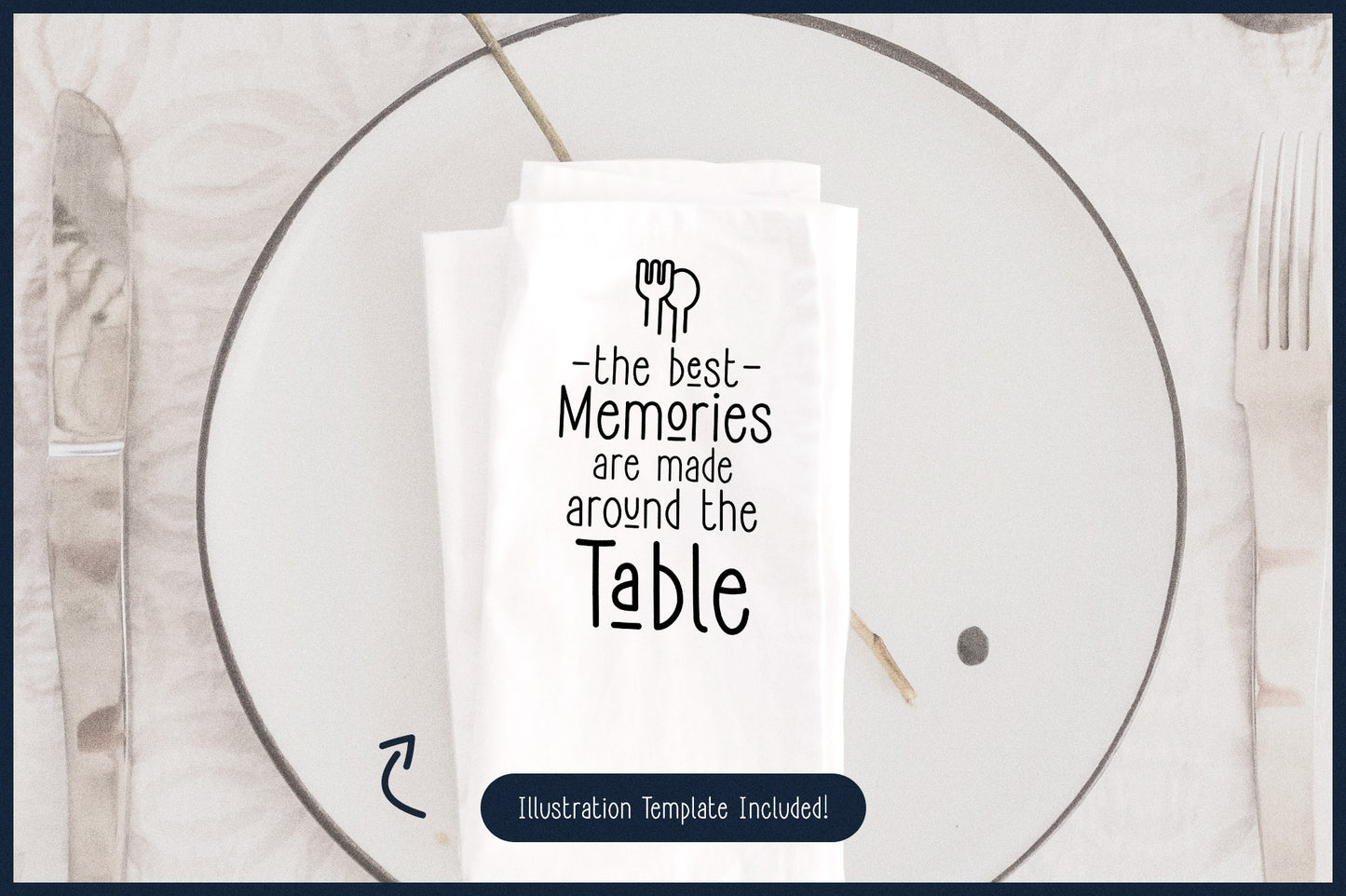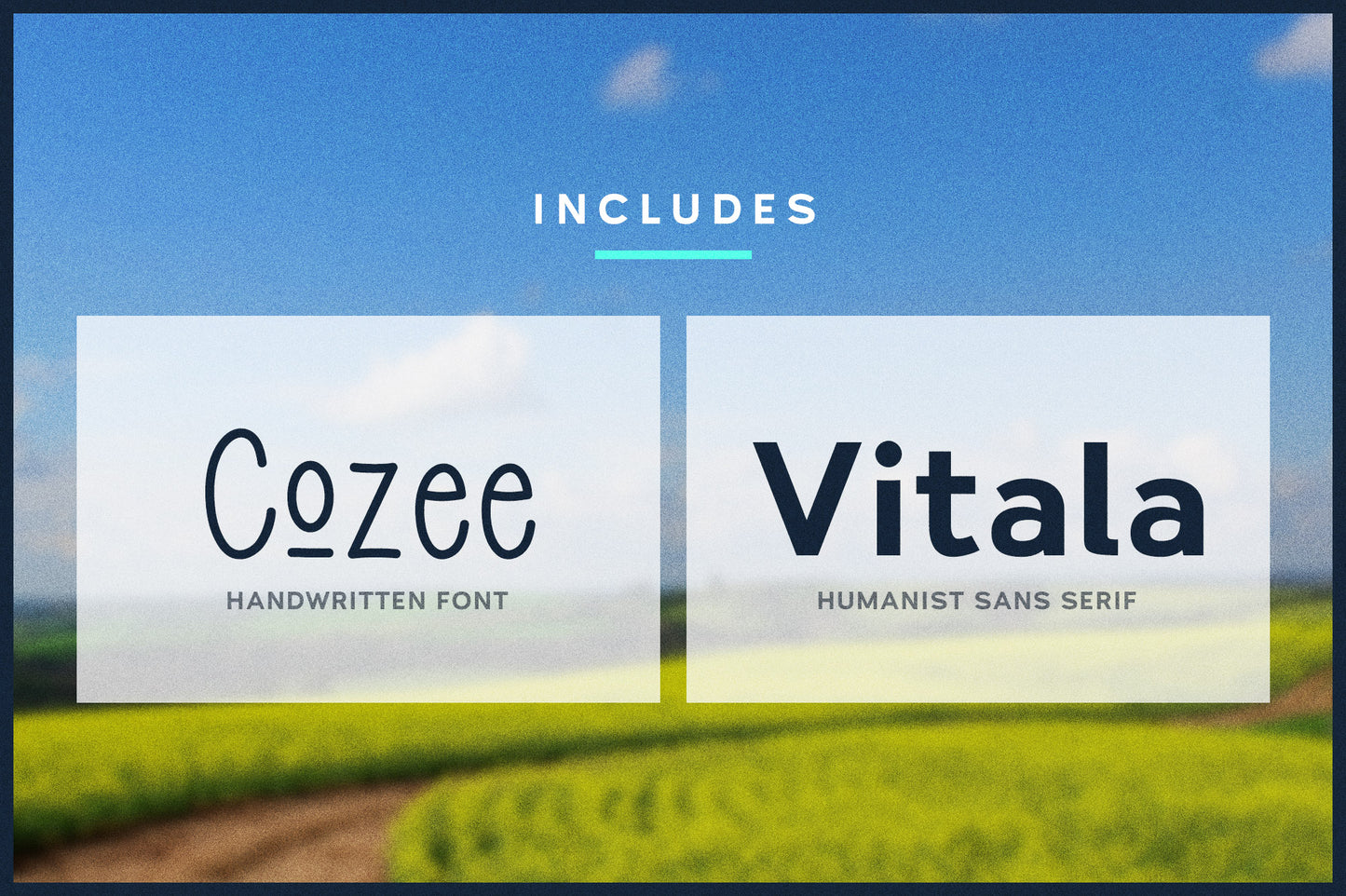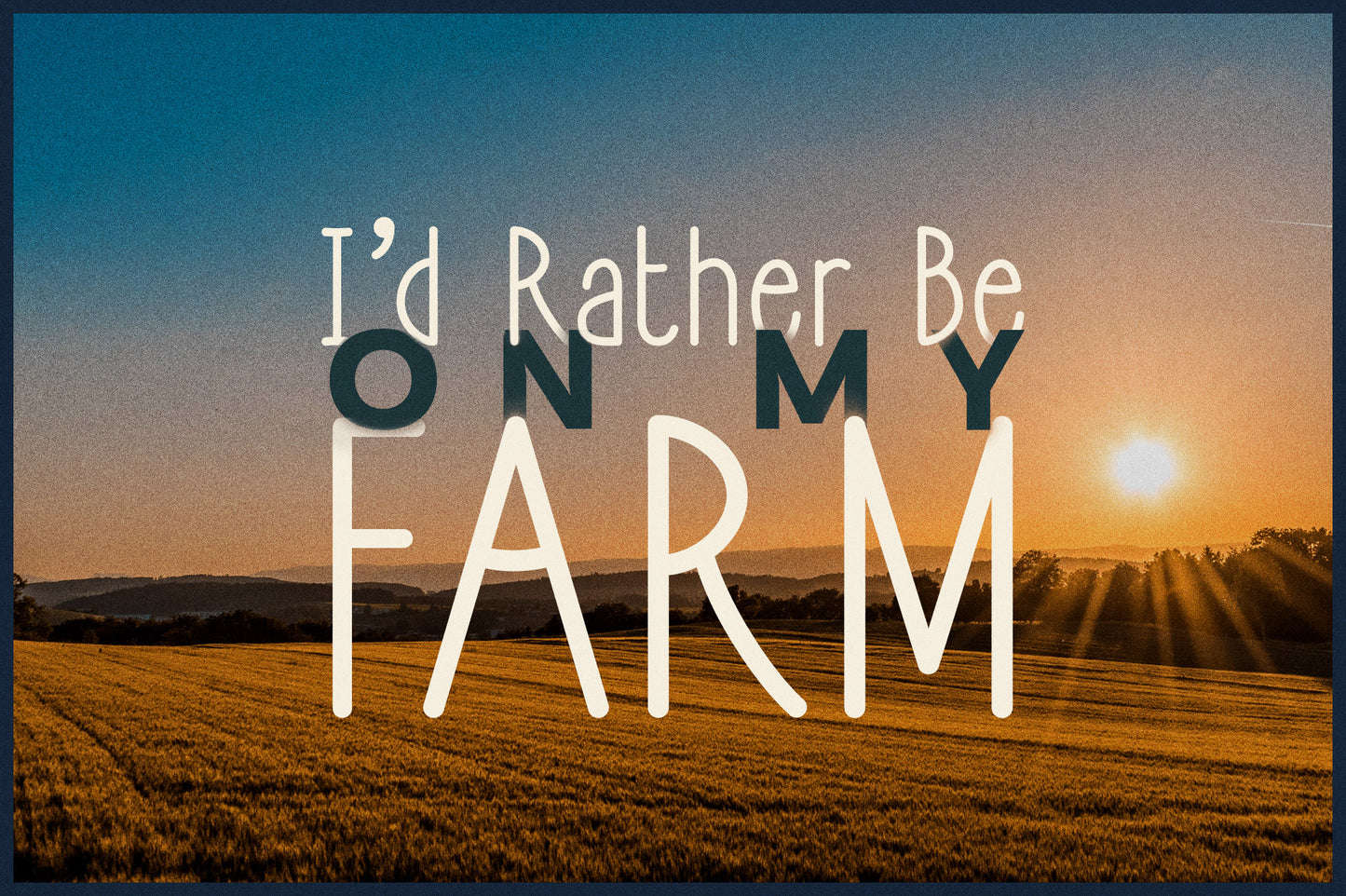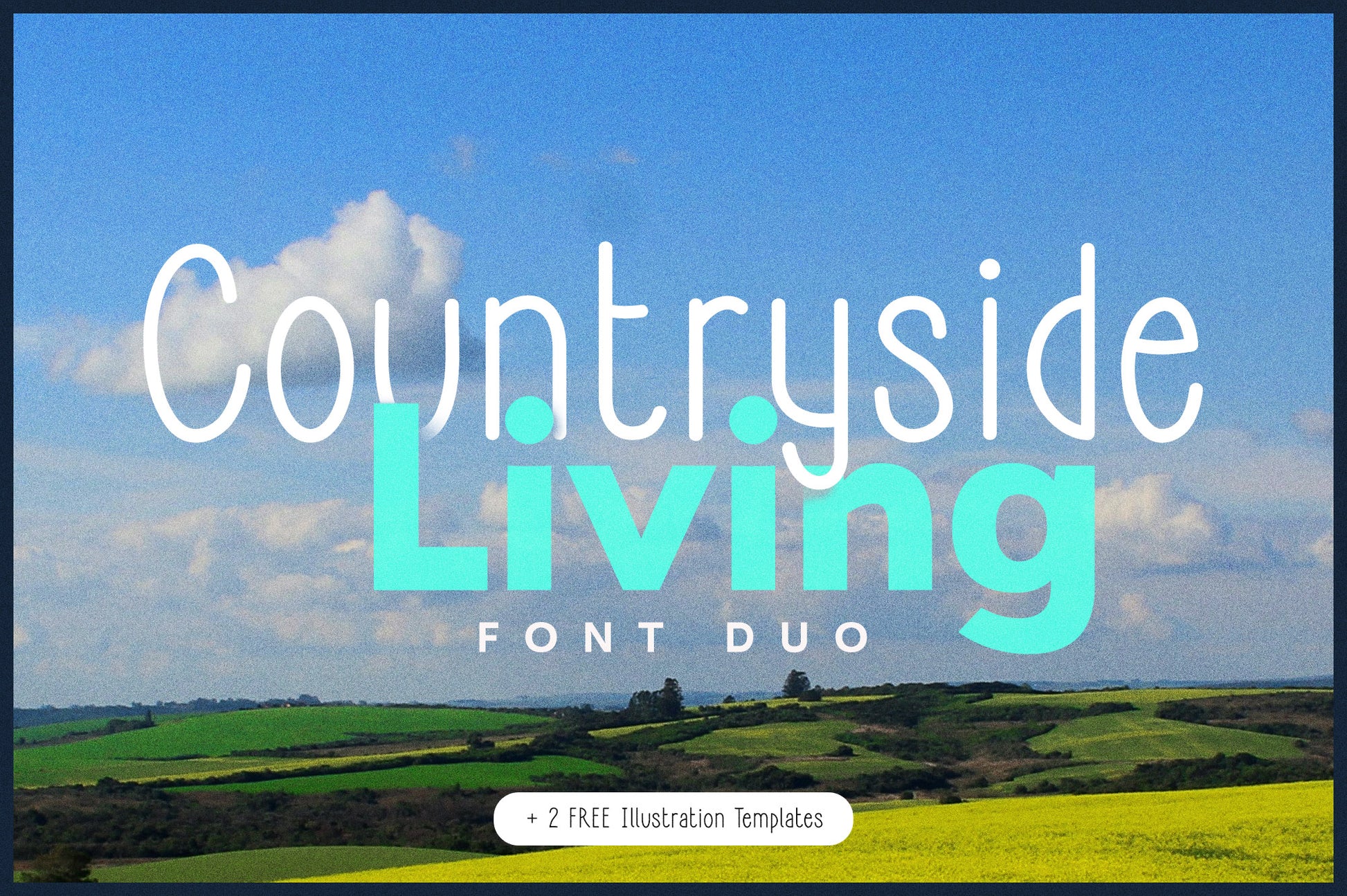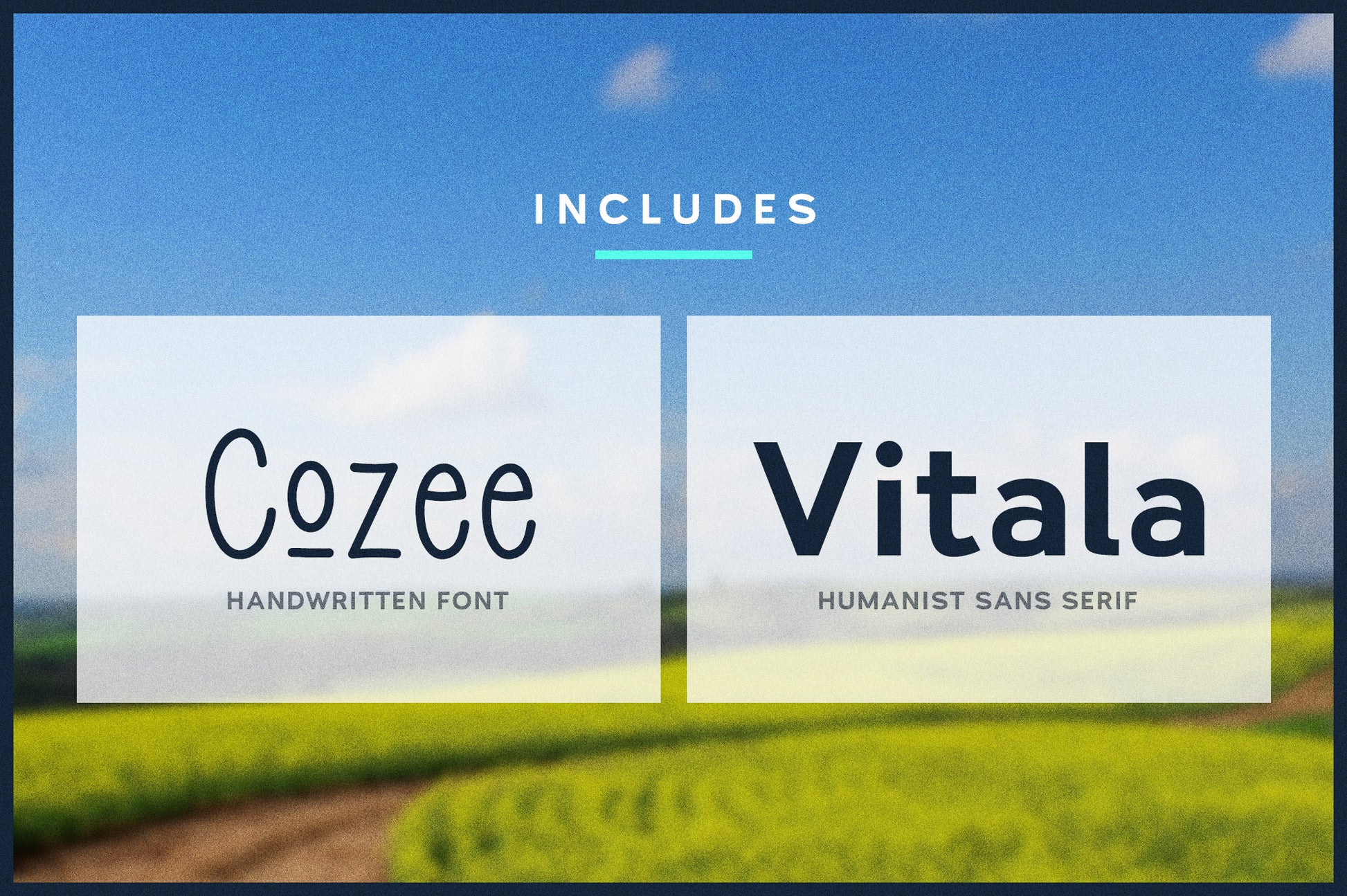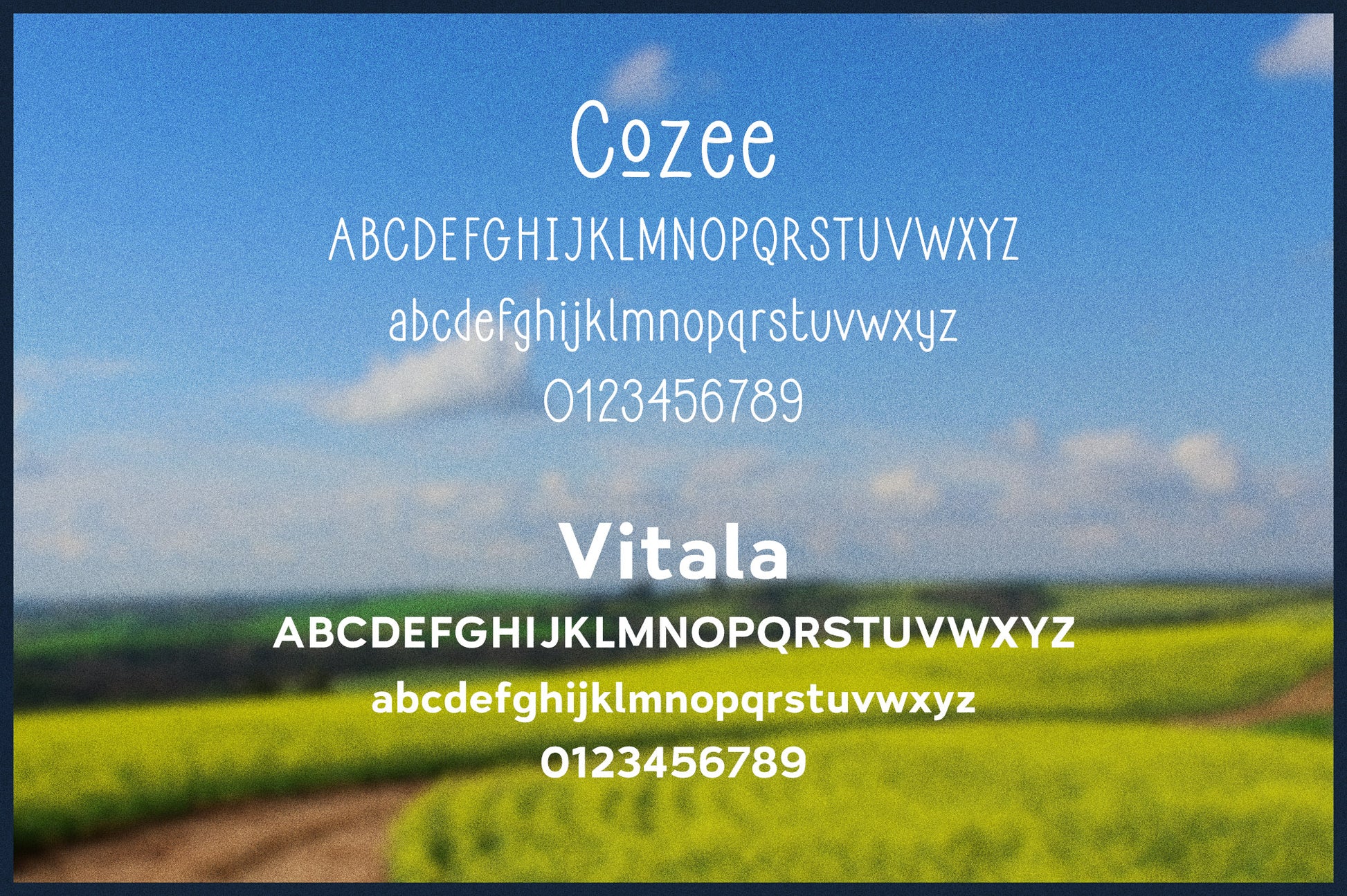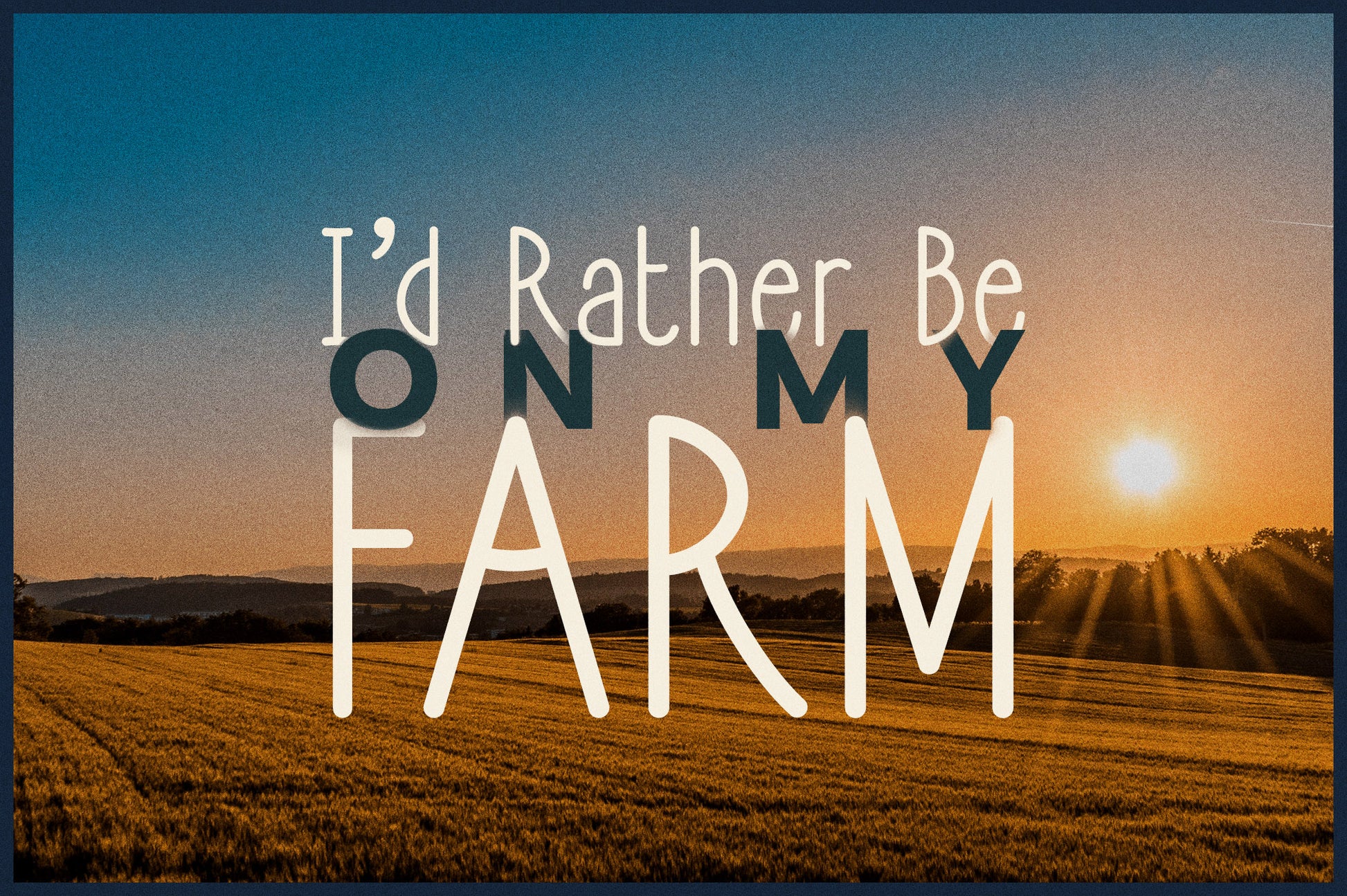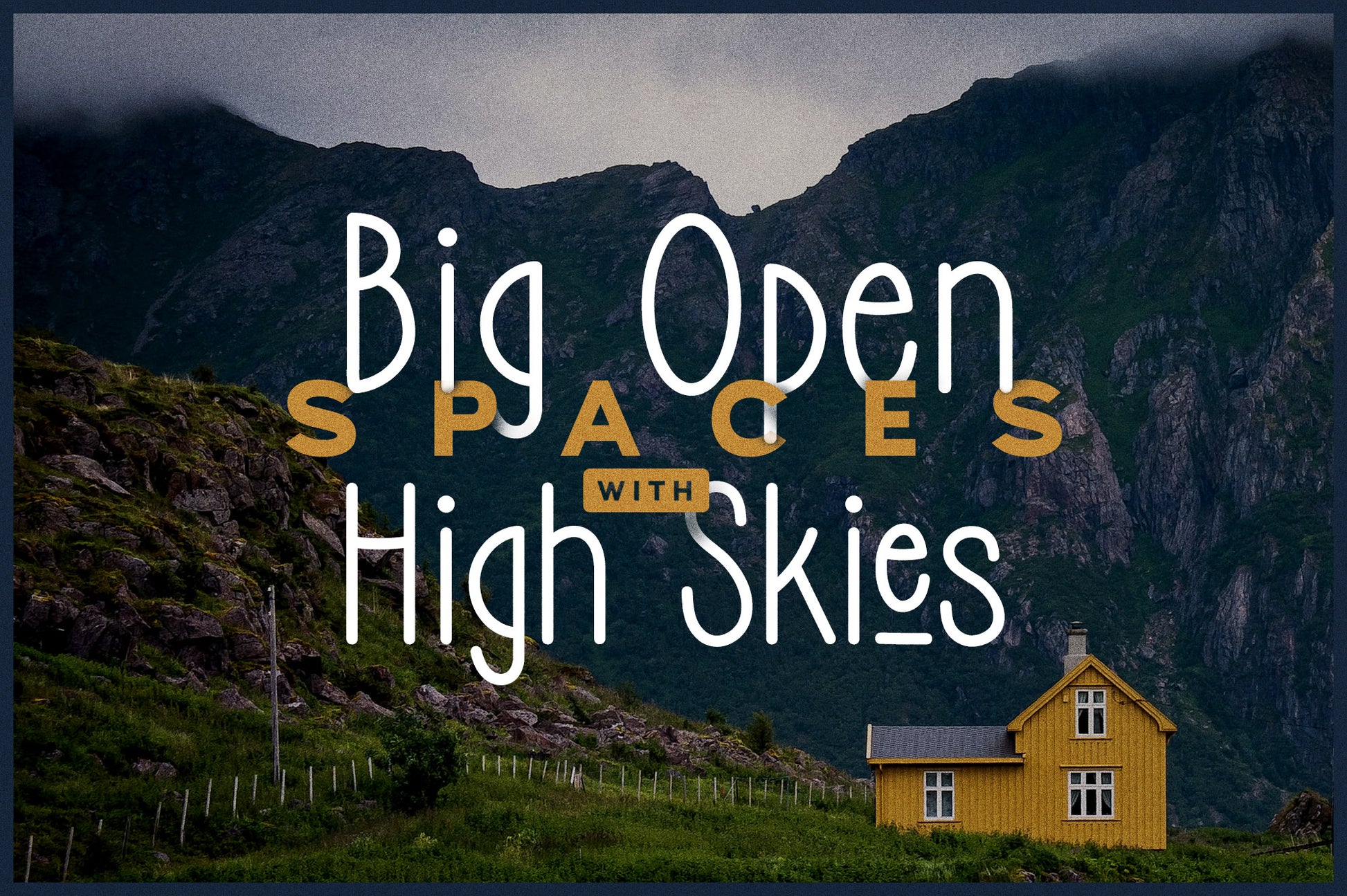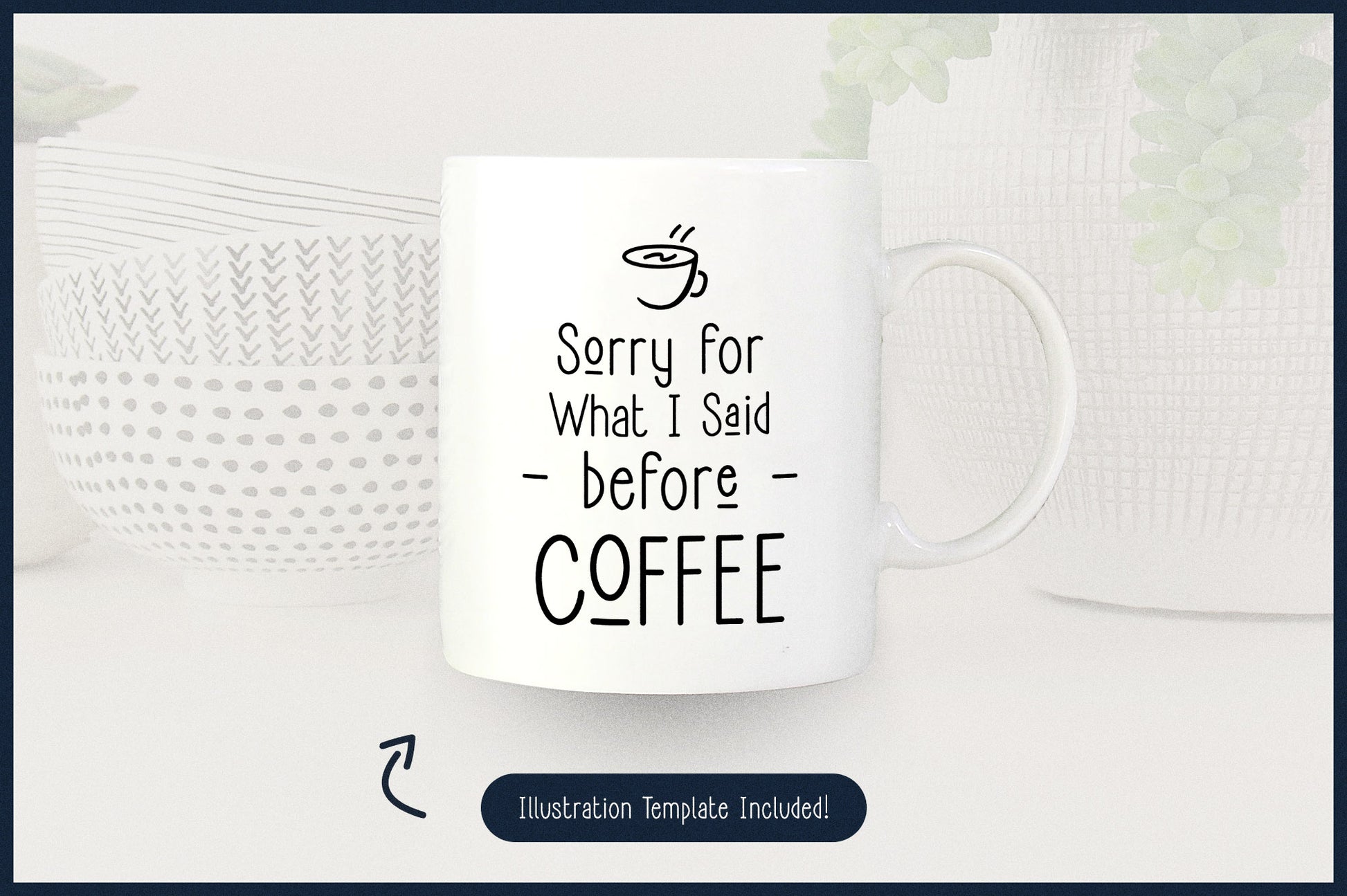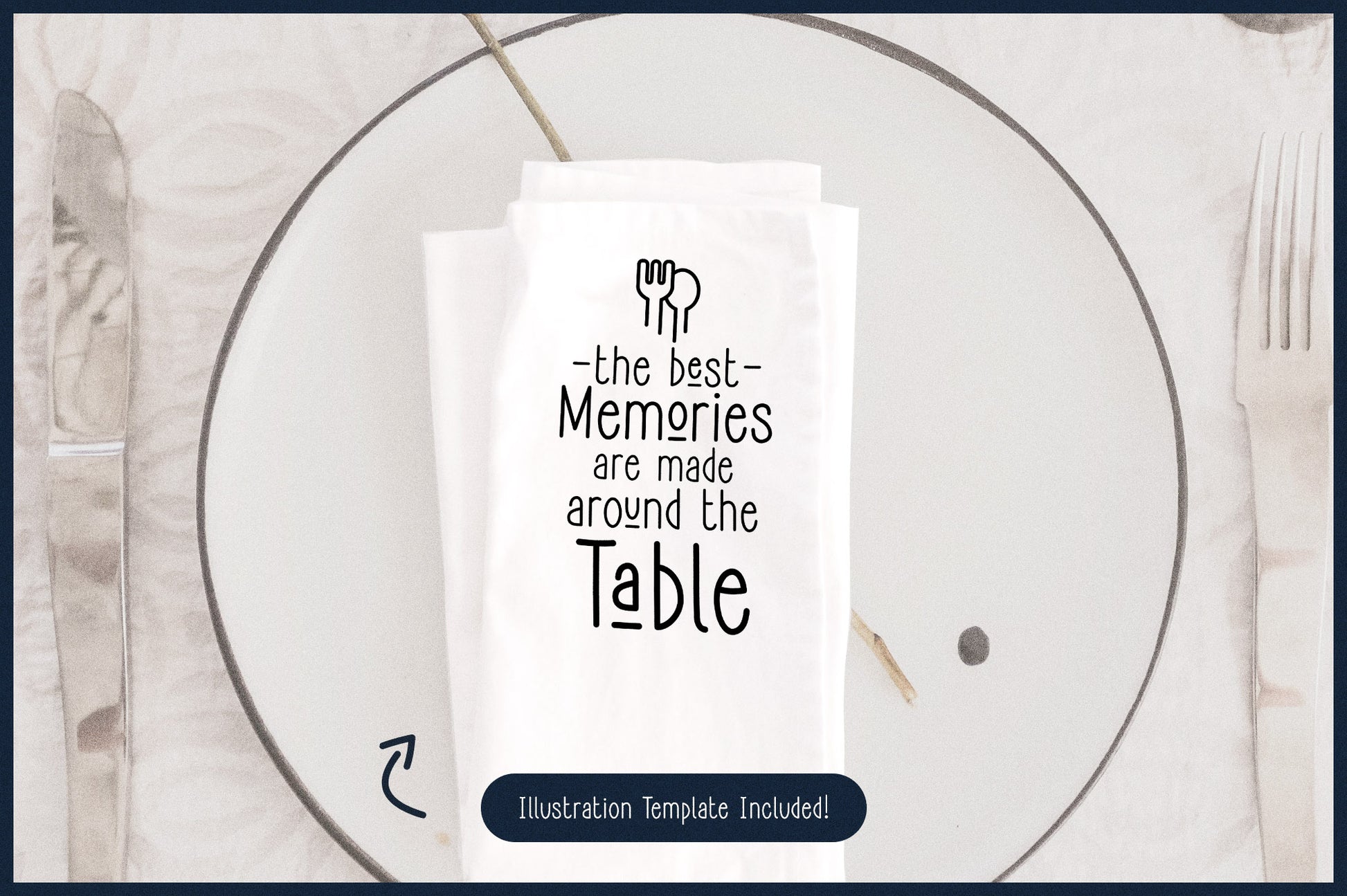
Countryside Living Font Duo + Free Templates
Create beautiful rustic illustrations with Countryside Living, a quirky modern farmhouse font duo. Countryside living pairs the popular country house style of the font Cozee with the modern clean lines of the Vitala font family.
Cozee: A quirky tall and narrow handwritten font with stylistic alternates! This modern condensed sans serif is fun and skinny - ideal for creating illustrations, cricut projects, custom home decor, and more!
Vitala: Designed to be highly readable with a unique personality, Vitala achieves both with an incredibly balanced character set and subtle humanist characteristics. Vitala comes with 8 weight variations + obliques.